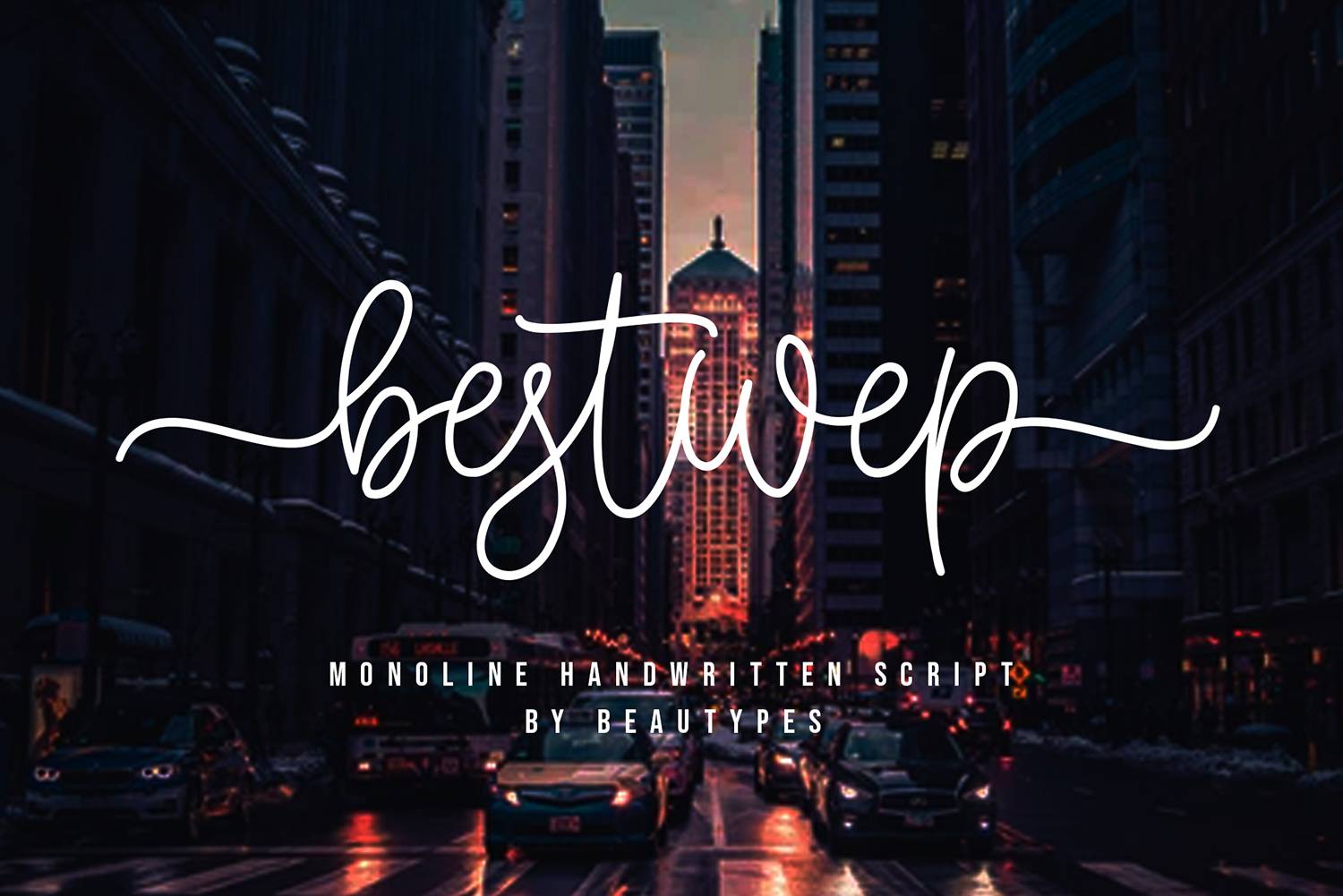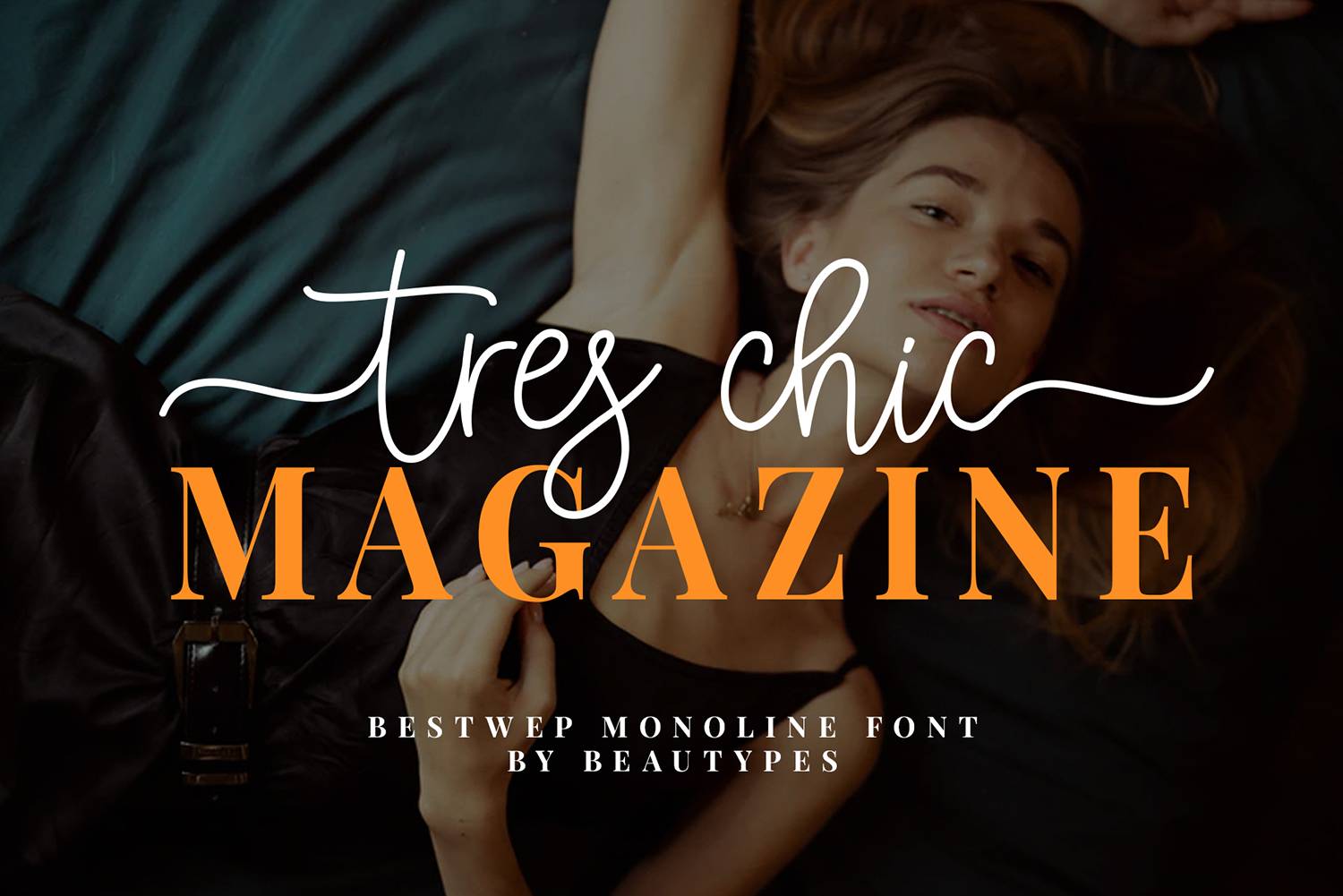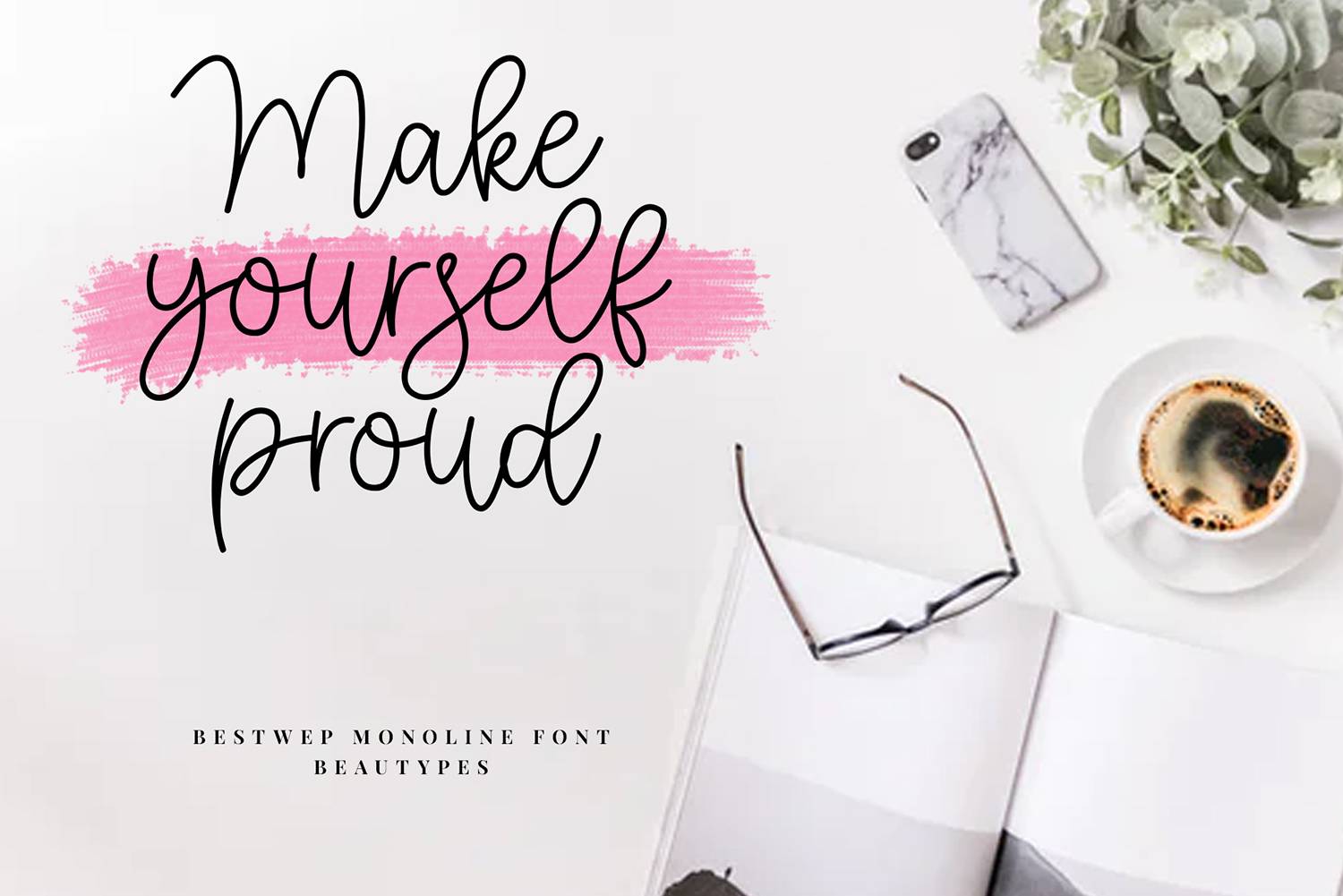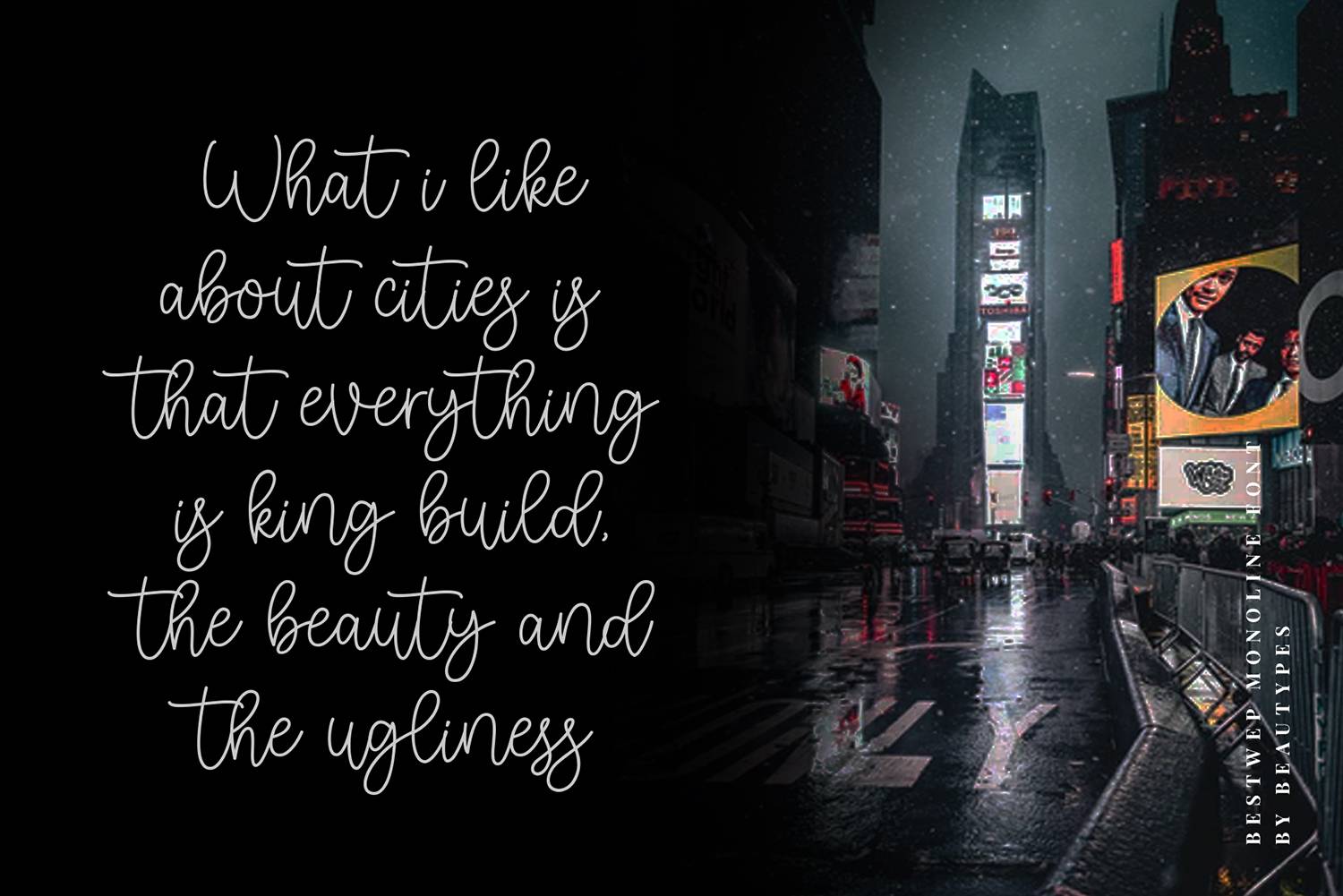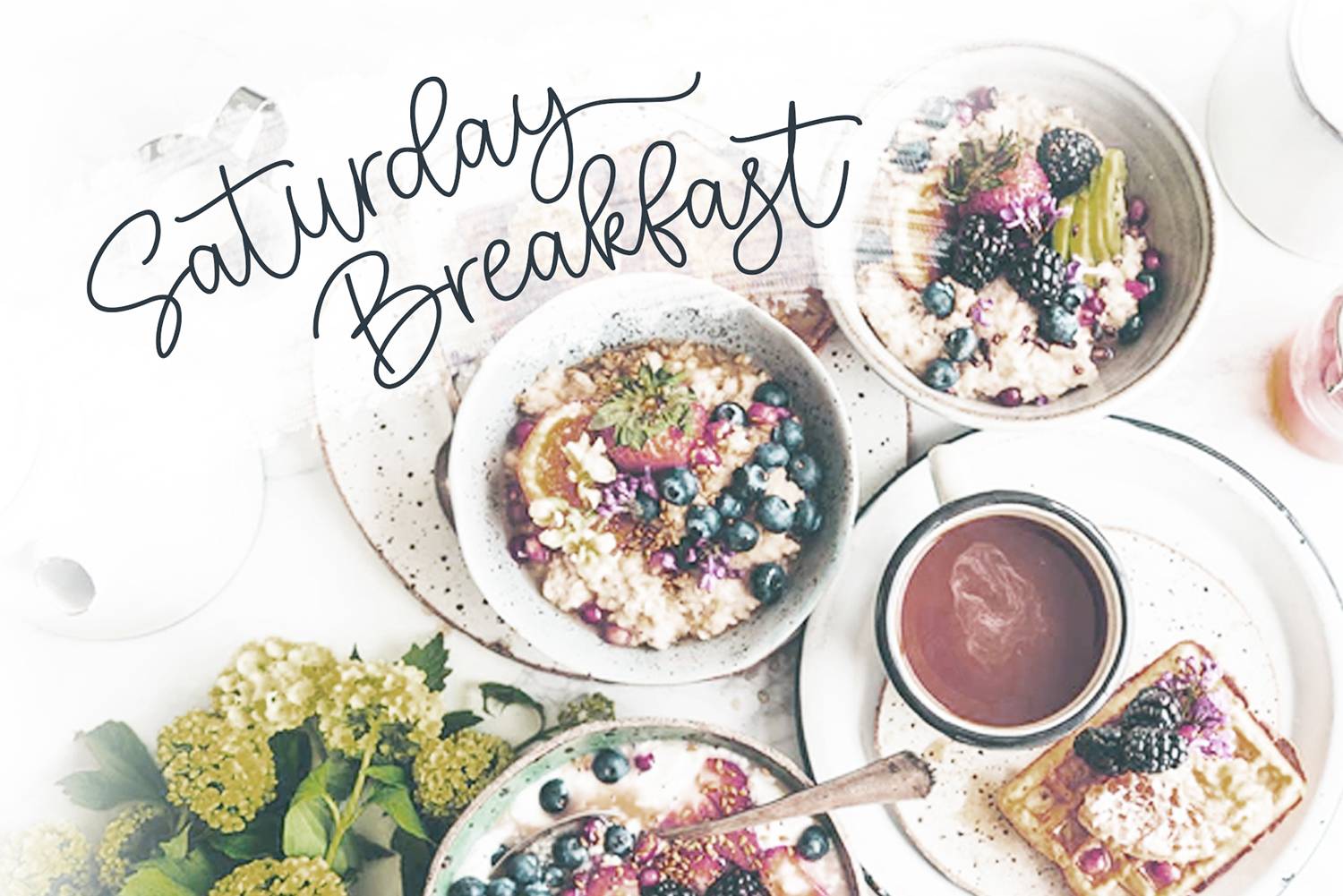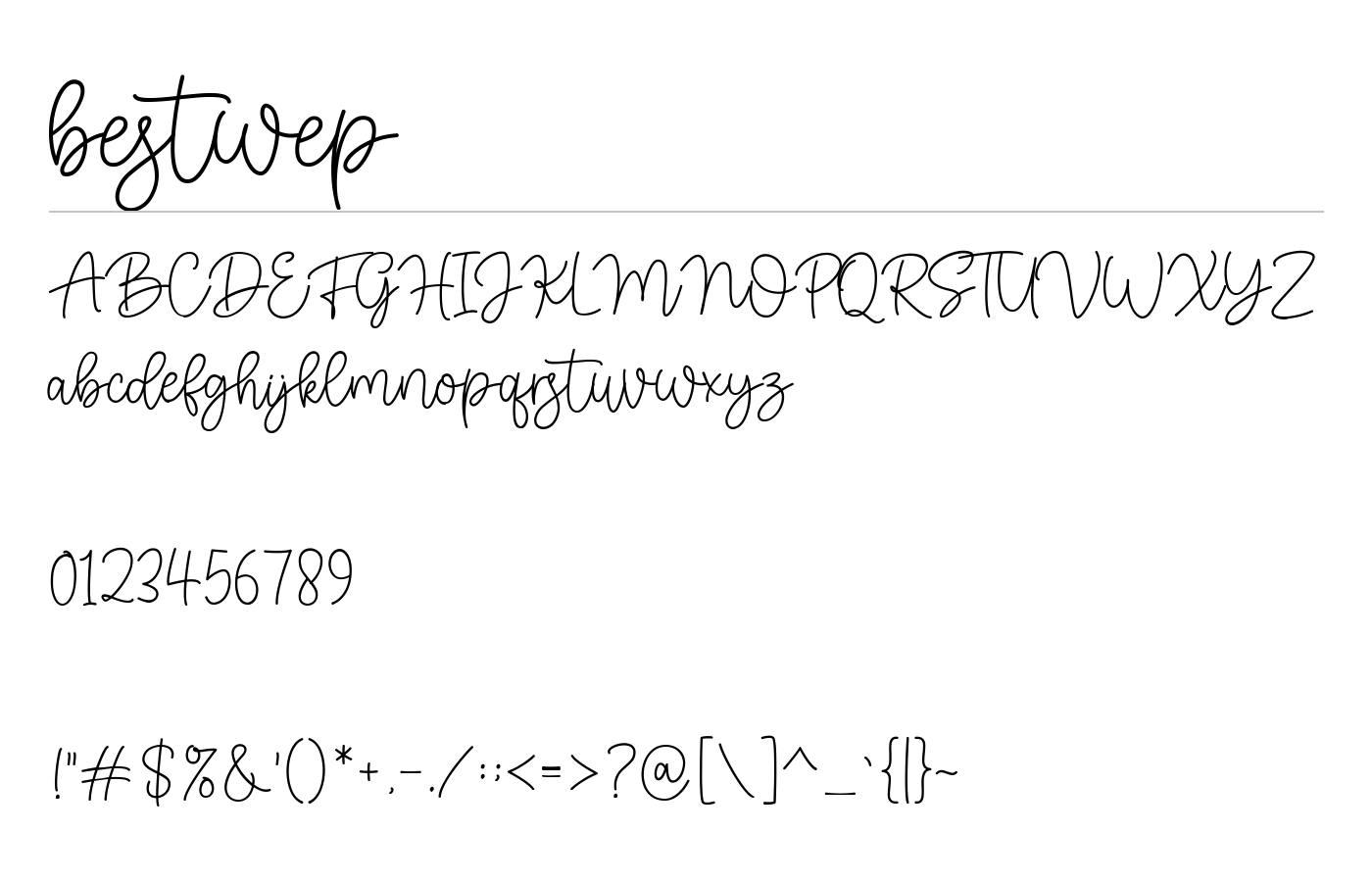
Bestwep is a delicate, handwritten script font with thin, flowing strokes that convey a casual and personal touch. Its elegant yet relaxed style makes it perfect for creative projects like invitations, branding, and social media, where a friendly and approachable feel is desired. This font stands out with its airy letterforms and natural rhythm, adding warmth and charm to any design.
Bestwep Font
About Bestwep Font
| Font family | Bestwep Font |
| Designer | Rizaldi Wandani |